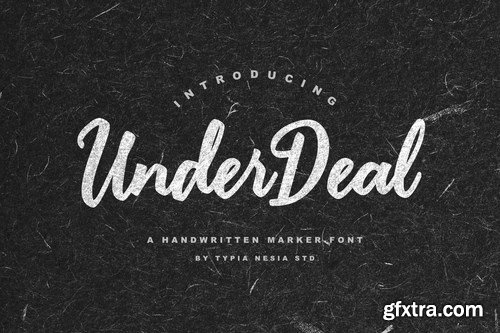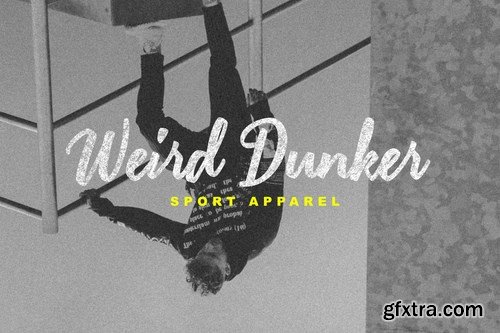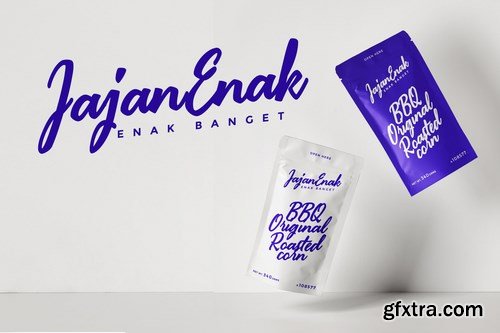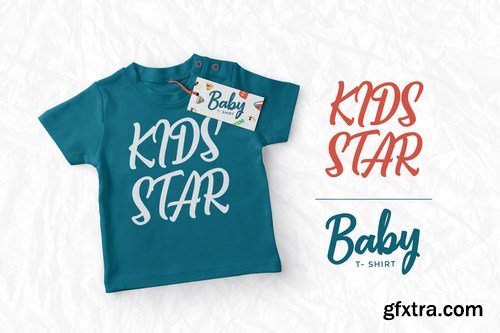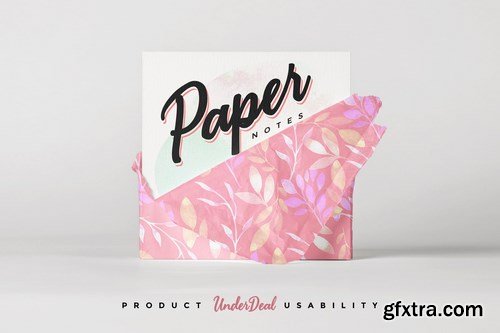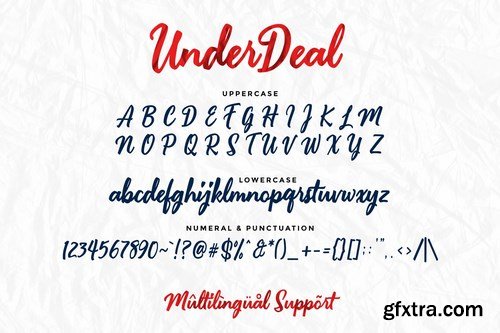
Under Deal is a Handwritten Marker Script Font.
Suitable for any design needs : logo, branding, modern advertising design, logos, poster quote, book / cover Title, editorial design, card, custom mug, pillow, t-shirts, and any hand-lettered needs.